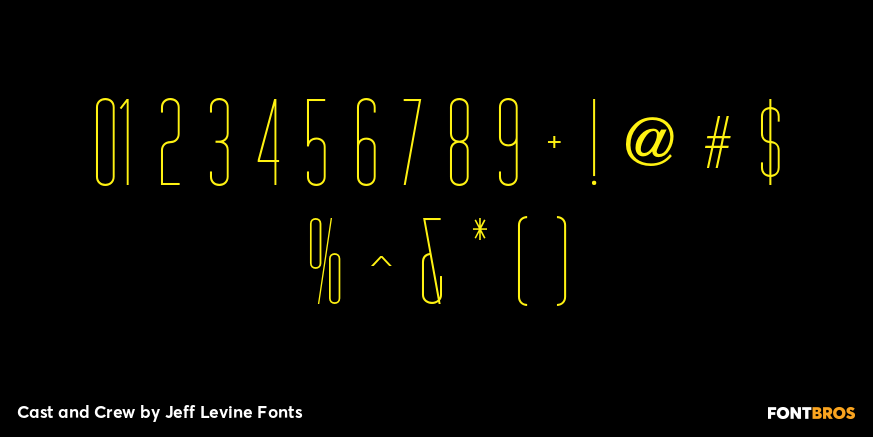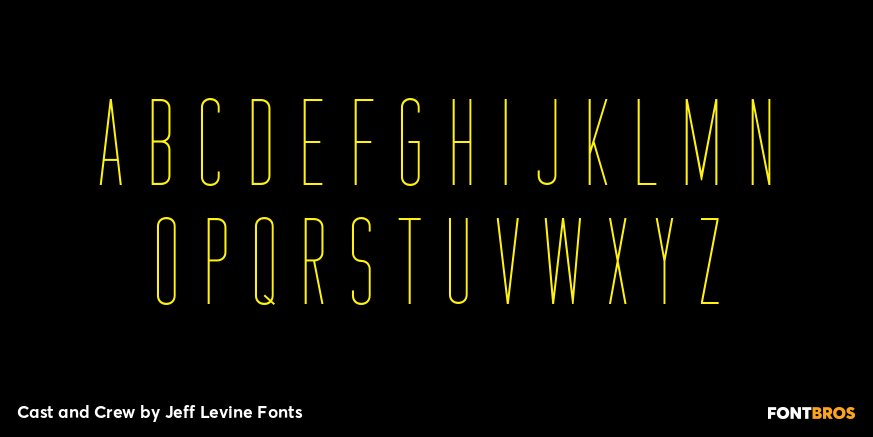
Cast and Crew
Cast and Crew JNL is a condensed monoline font that lends itself well to any text project where more copy needs to fit into a limited space. A perfect example of this is a movie poster's cast, director, producer and other acknowledgements.
Cast and Crew JNL Regular by Jeff Levine Fonts